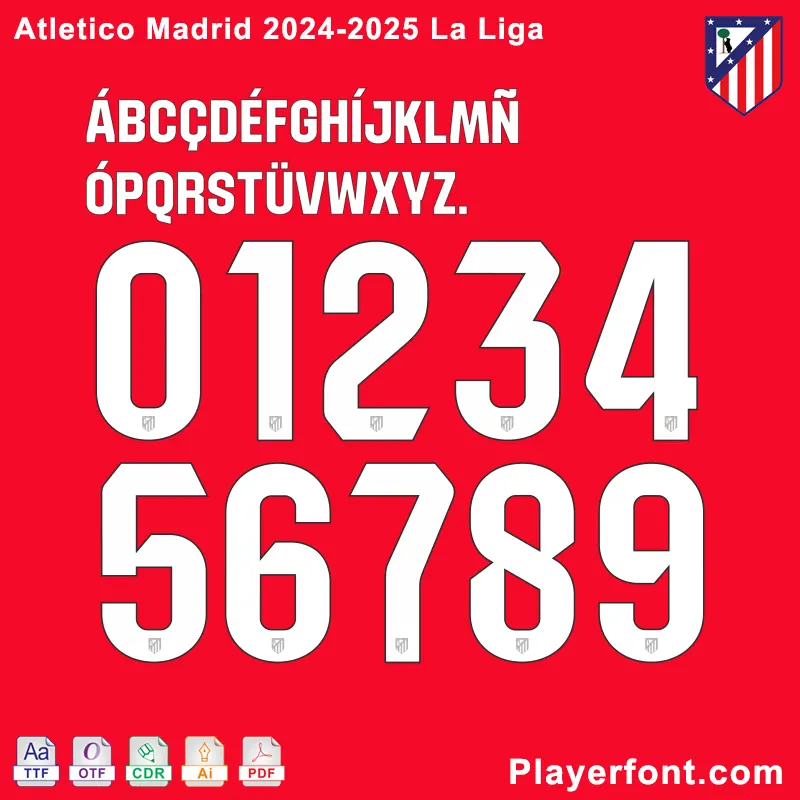
The Atletico Madrid La Liga 2024-2025 Font is based on the official name set, with the Atletico Madrid La Liga FC club logo at the bottom of the number. Can be used custom LaLiga Atletico Madrid 24-25 jersey name set.